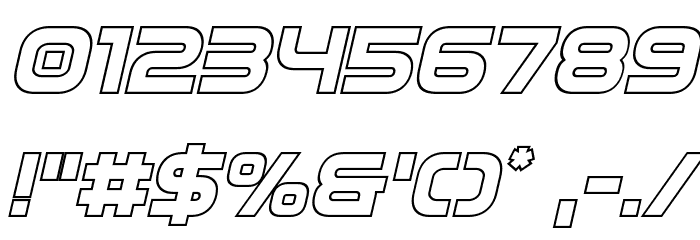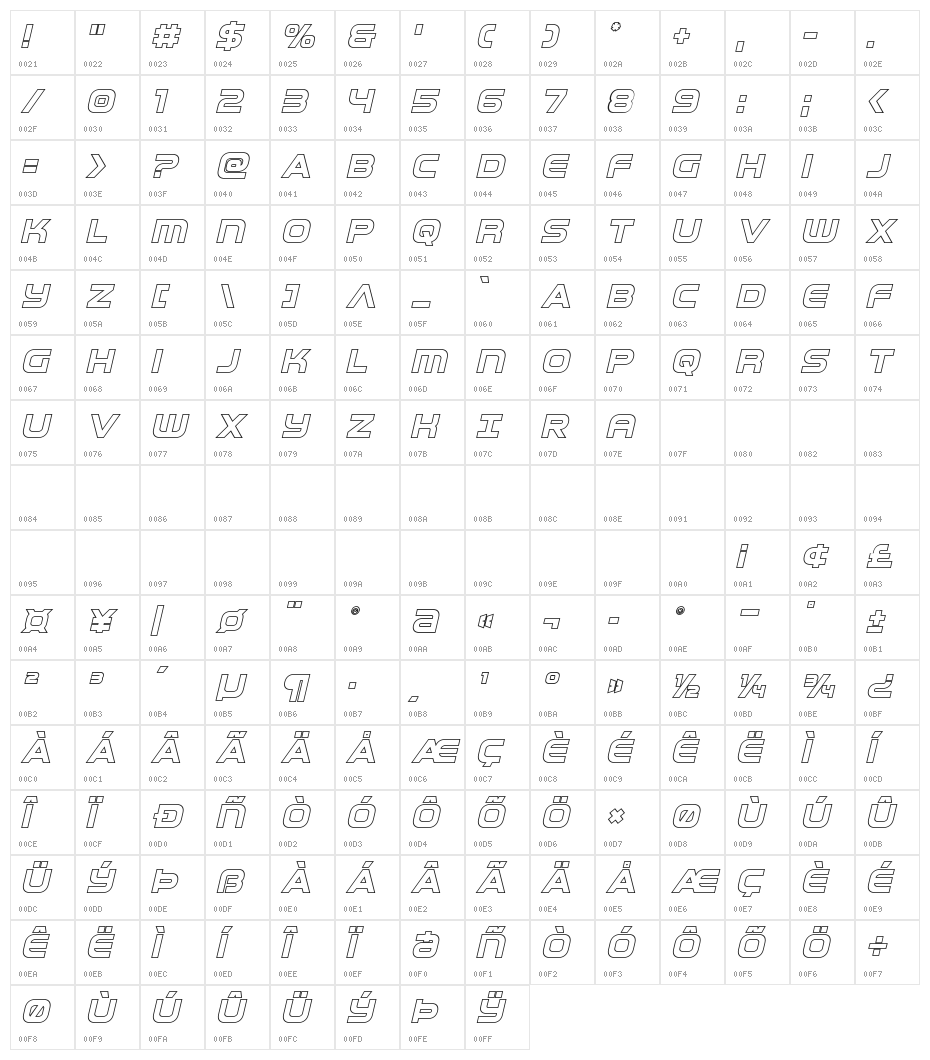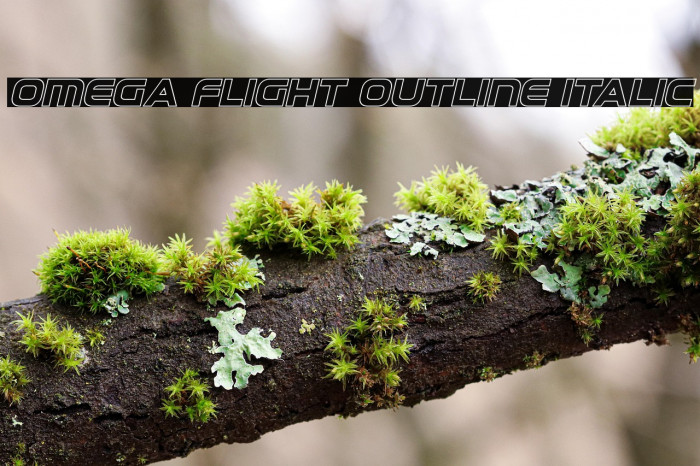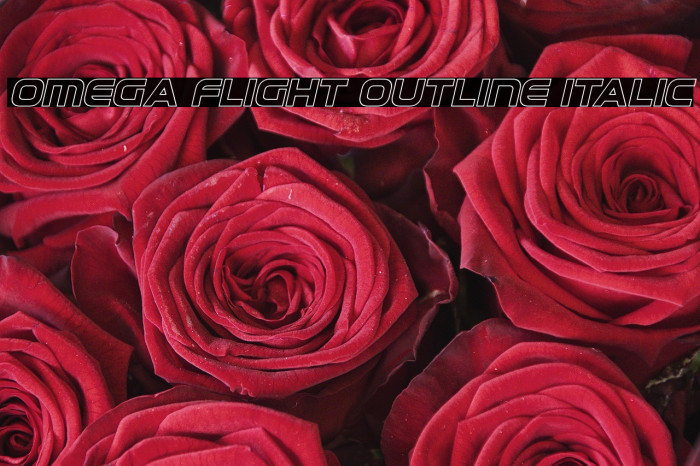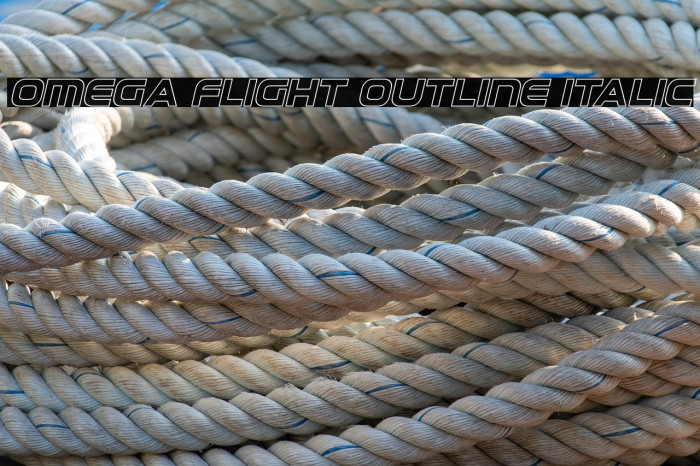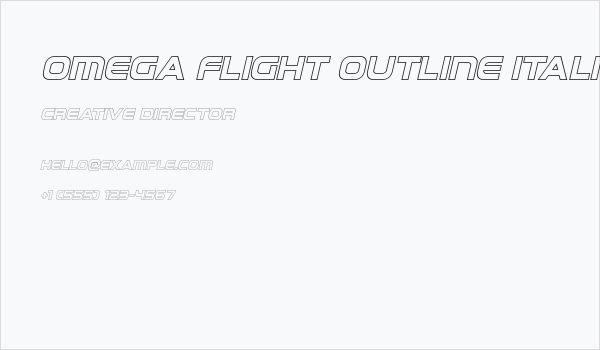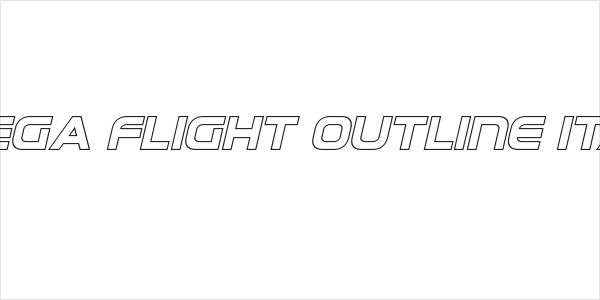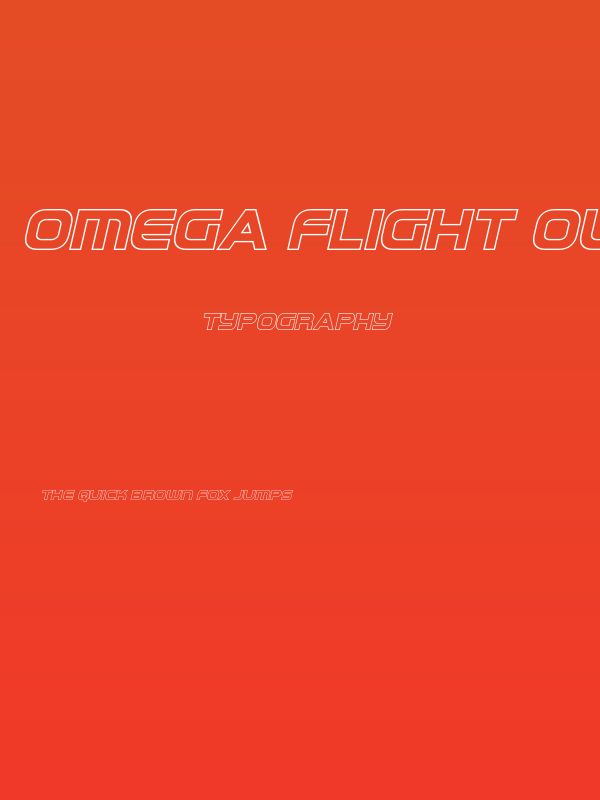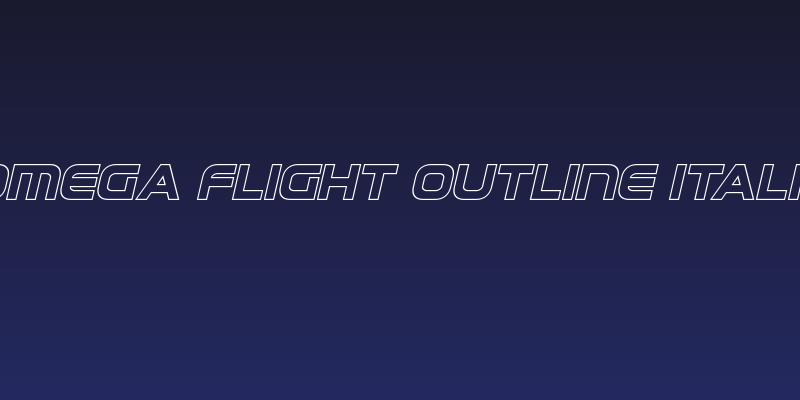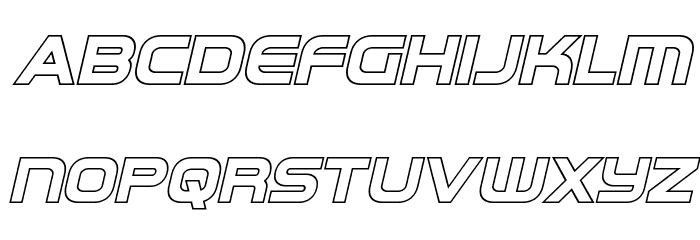
Omega Flight Outline Italic Font
This font features a modern, futuristic design with an outline style that gives it a unique and striking appearance. The characters are italicized, adding a sense of motion and dynamism. The uppercase and lowercase letters maintain a consistent geometric structure, with sharp angles and clean lines. The numbers and special characters follow the same design principles, ensuring uniformity across all glyphs. The outline effect creates a sense of depth and dimensionality, making it ideal for projects that require a bold and eye-catching typeface.
| Proposed Projects | Ideal for sci-fi themed designs, video game titles, posters, and branding that requires a modern and edgy look. |